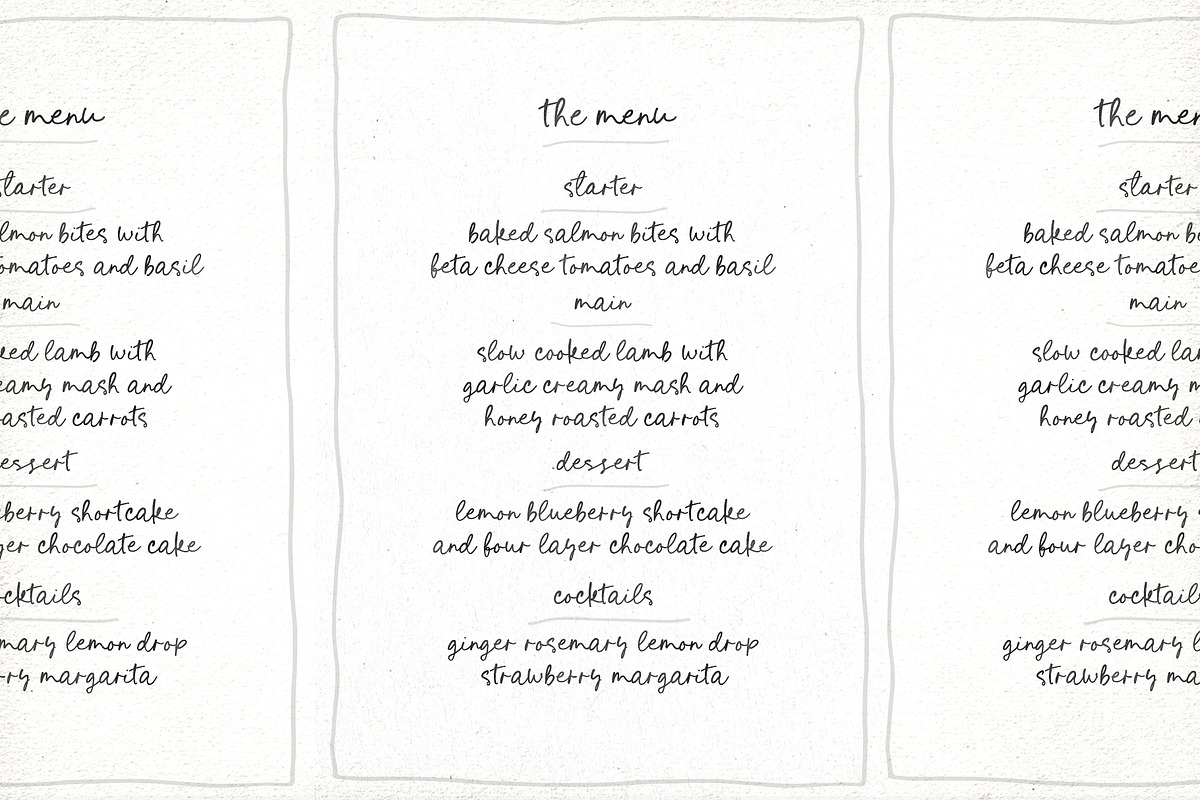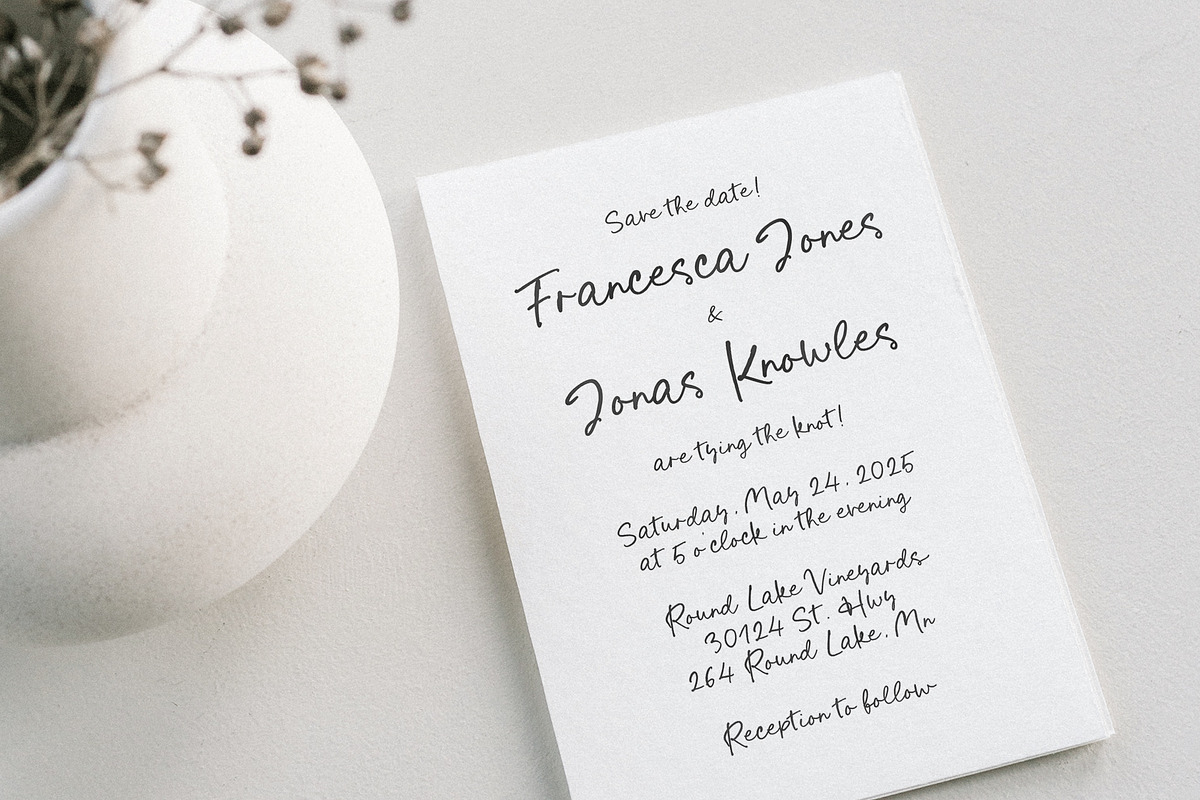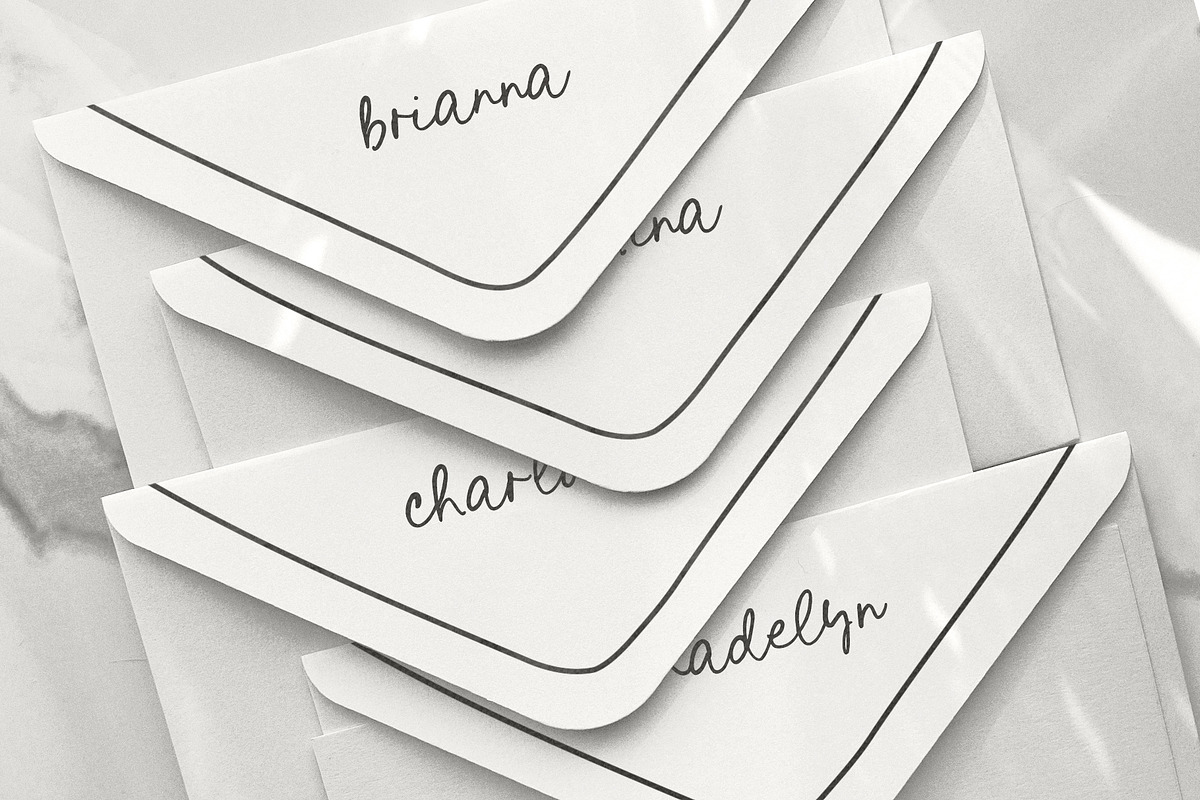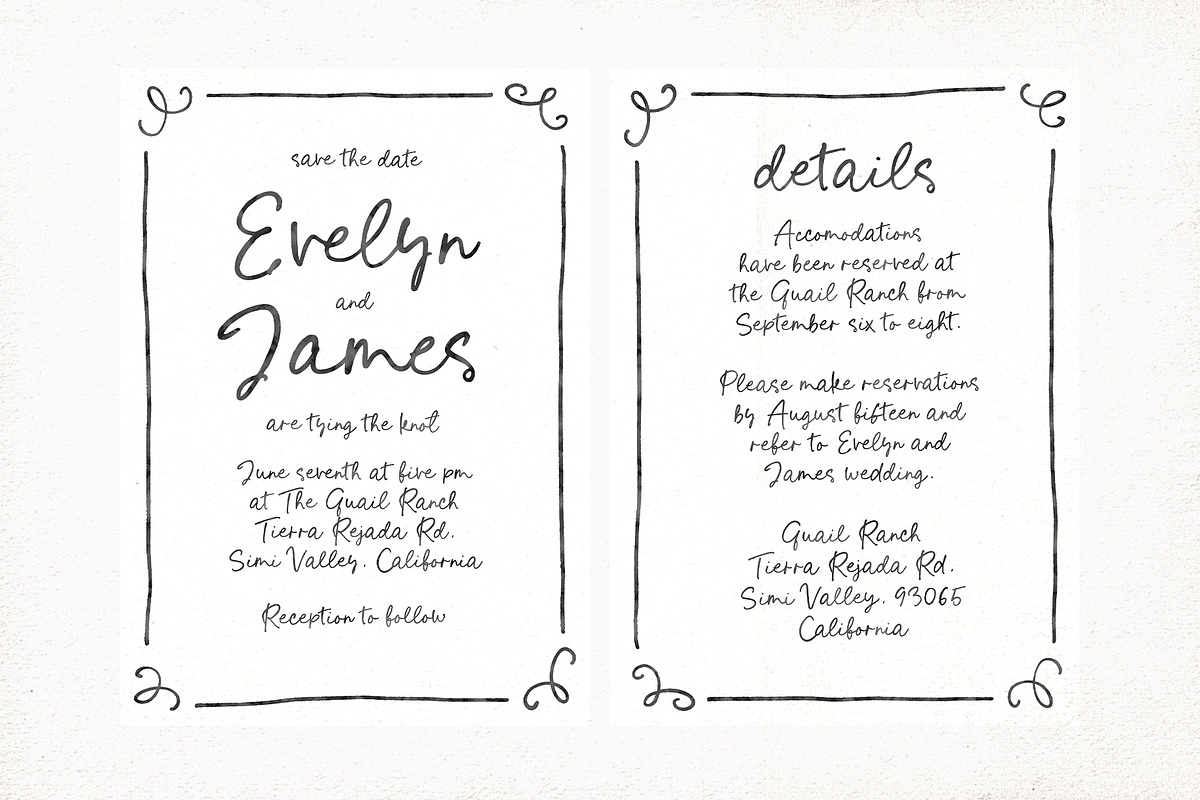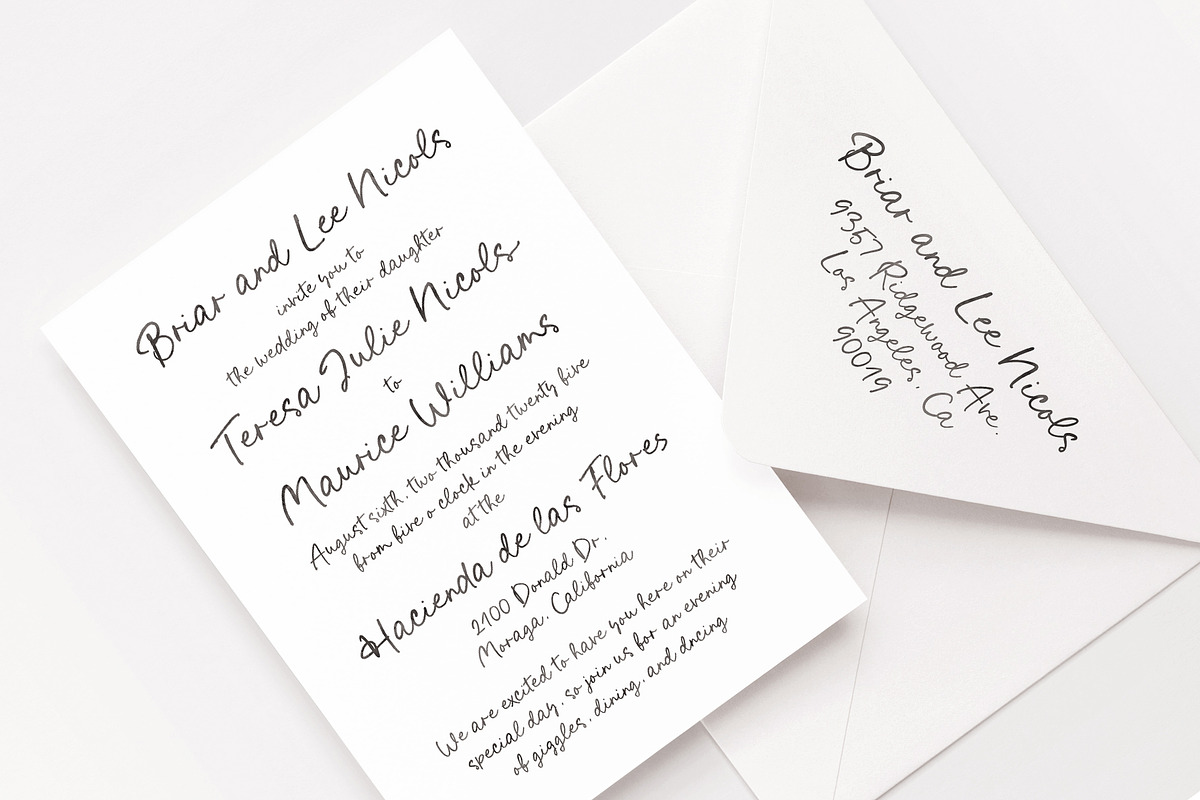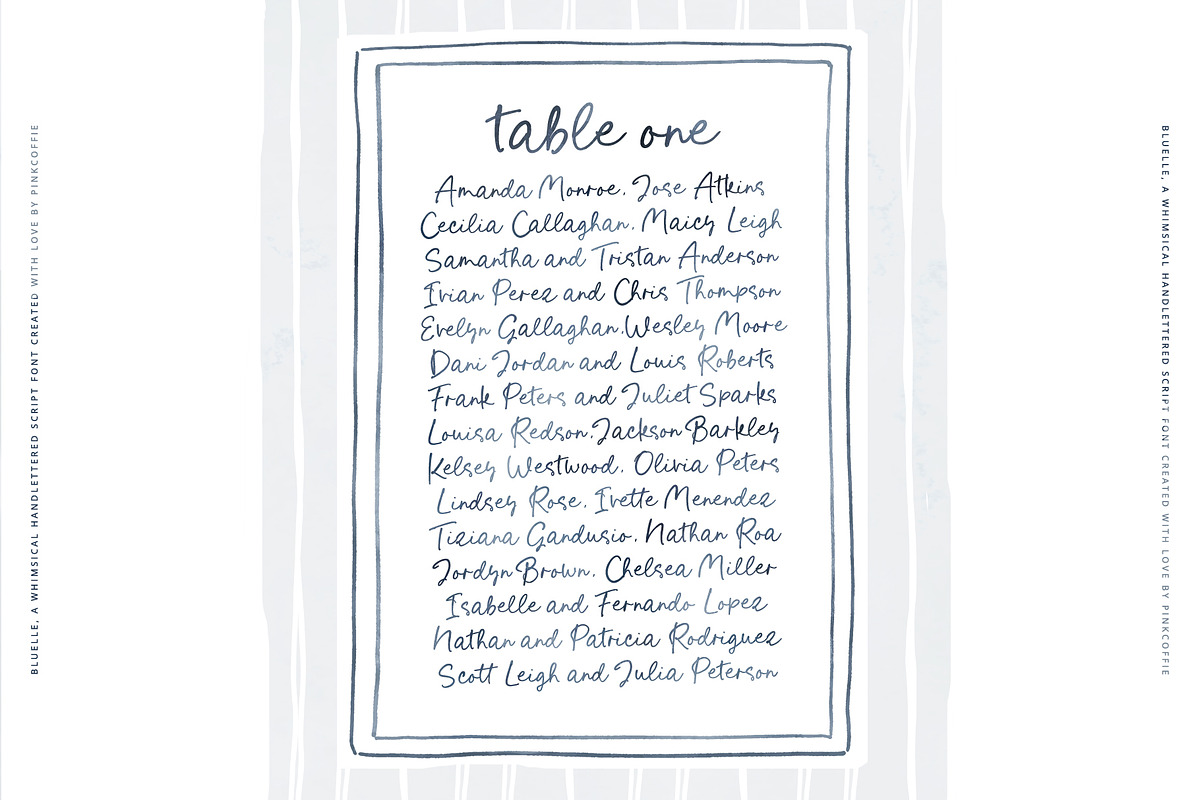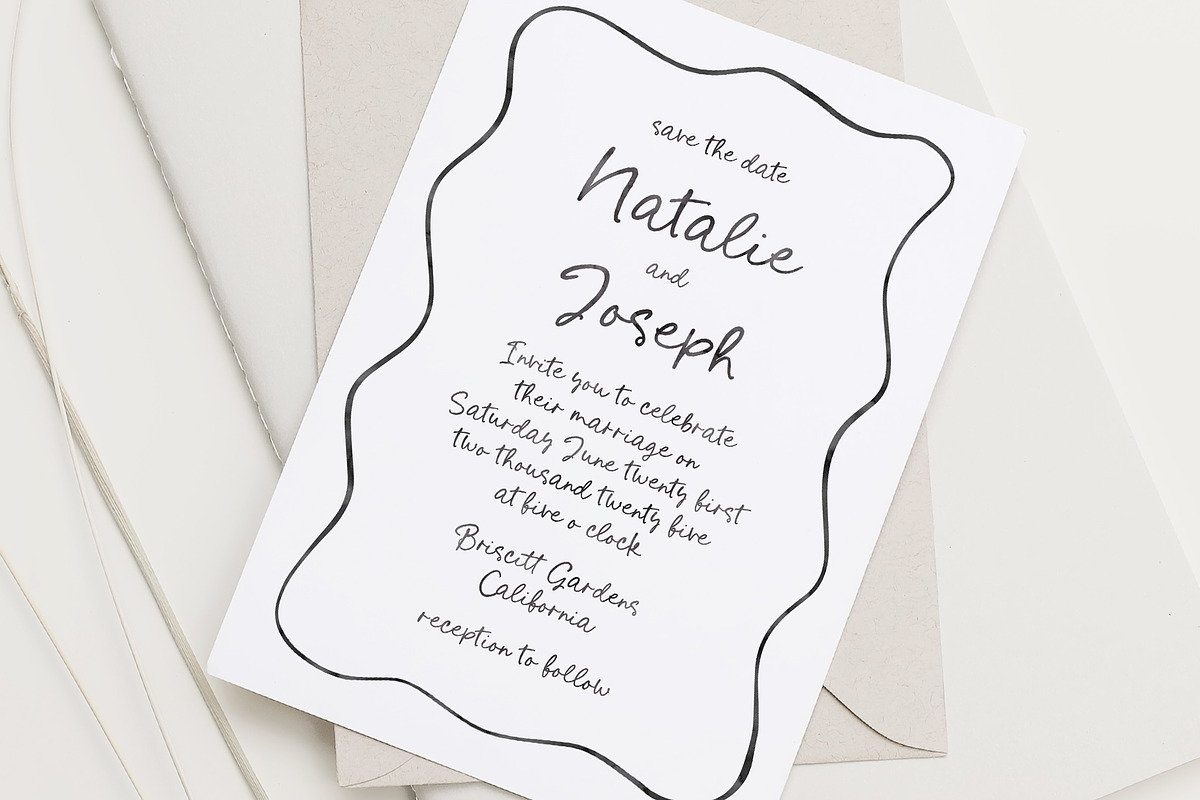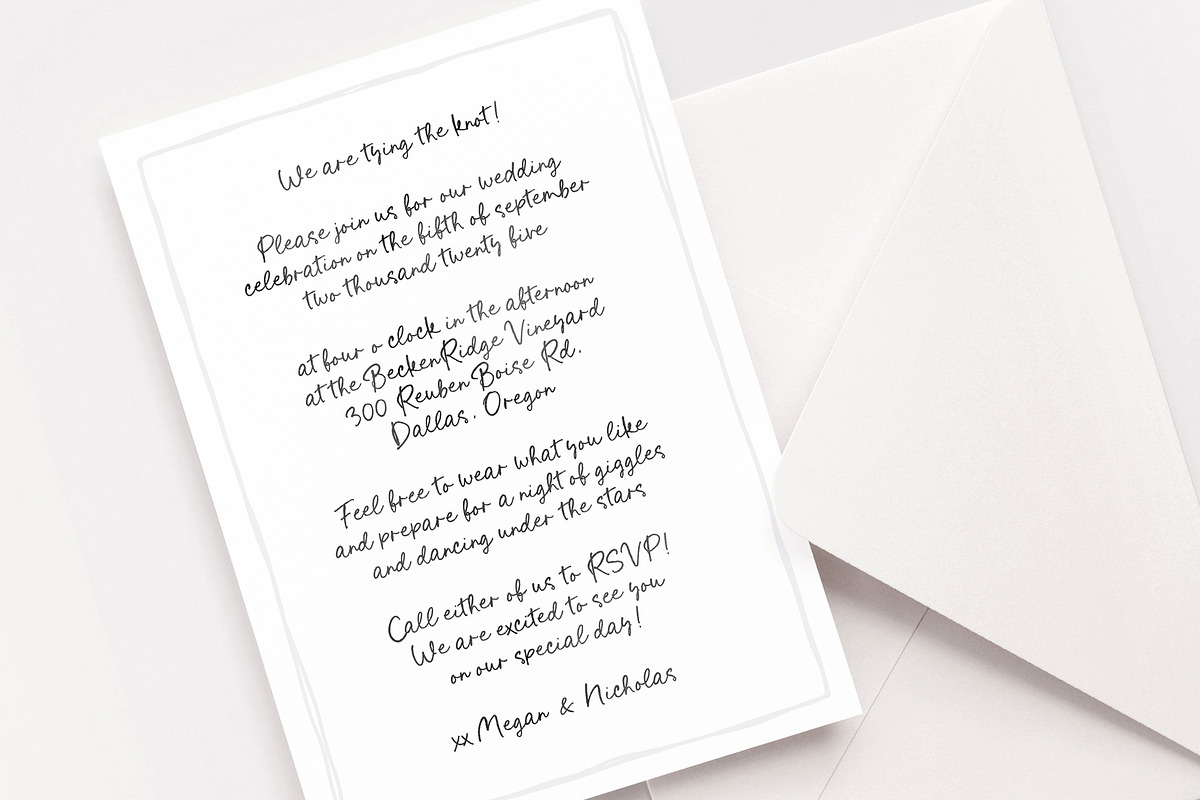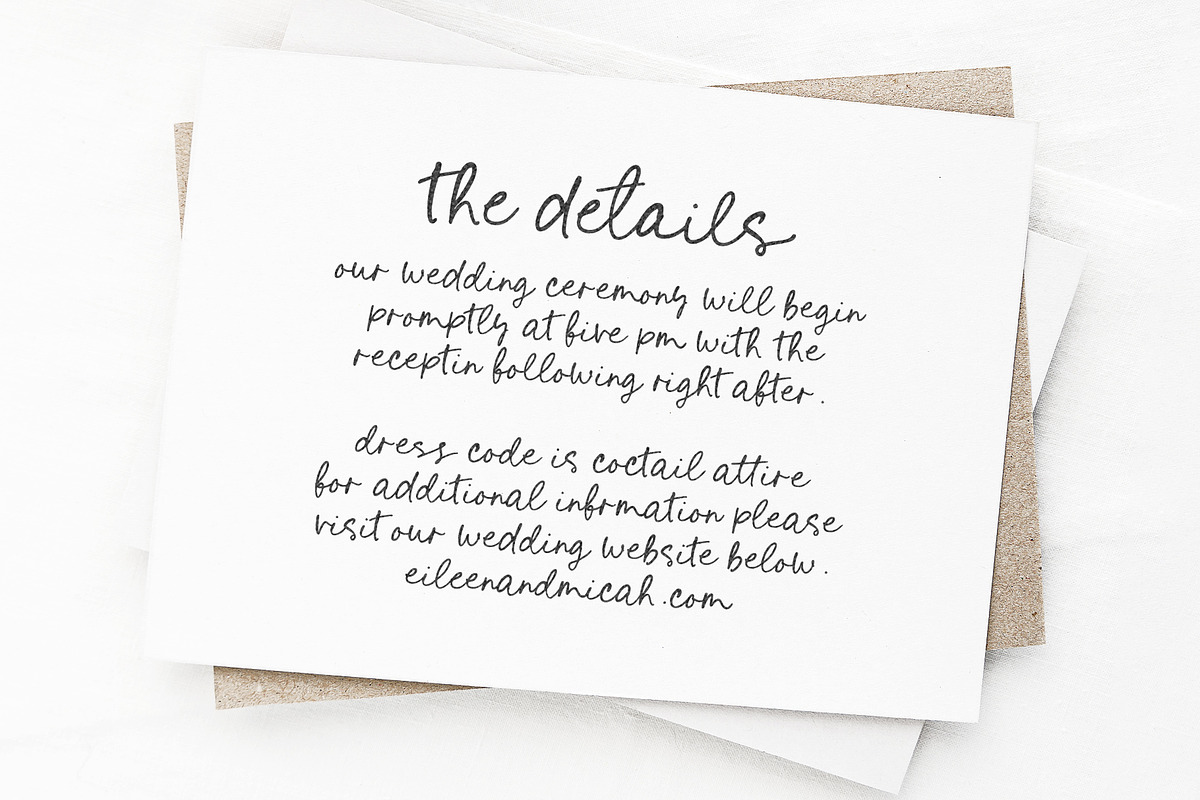
Bluelle | a Whimsical Wedding Script
Say hello to Bluelle, a whimsical handlettered wedding script font inspired by quirky handmade wedding invitations.
Bluelle is super versatile and can be used for a variety of projects including whimsical and quirky wedding stationery, bridal shower Invitation templates, birthday invitations, printables, planners, seating charts, save the dates, wedding websites, prints, apparel, journals, website themes, branding, logos, and much, much more!
- Bluelle - regular font containing all OpenType features such as stylistic alternates, beginning and ending swashes and double letter ligatures.